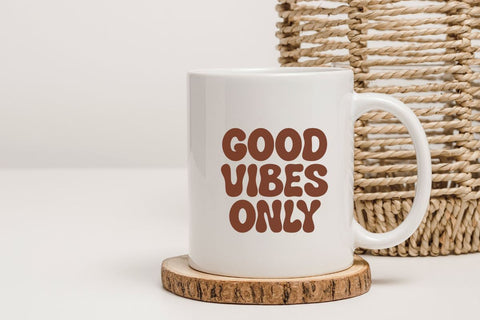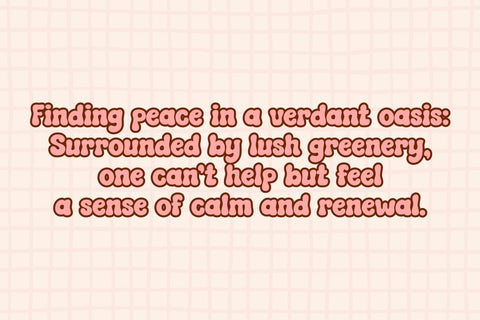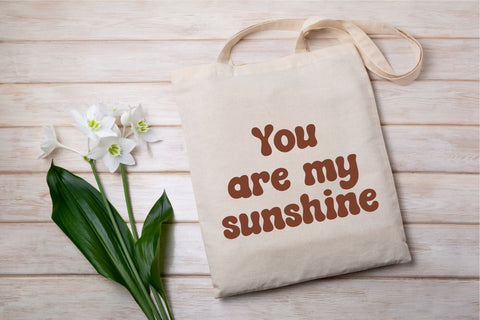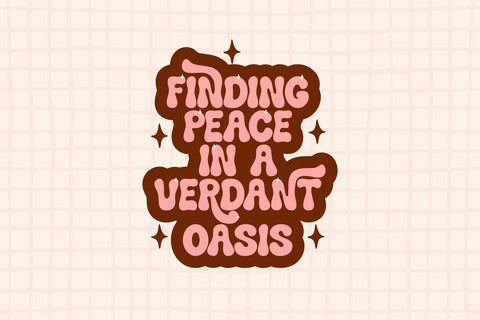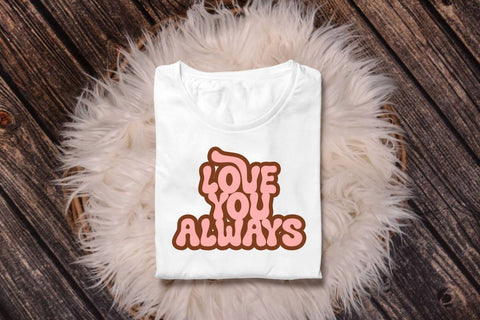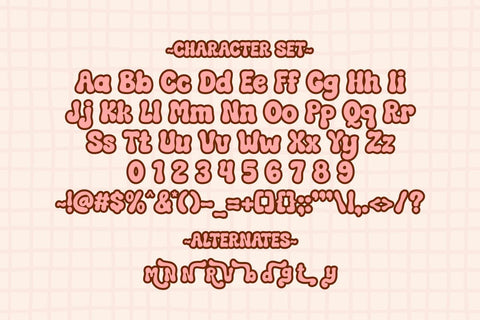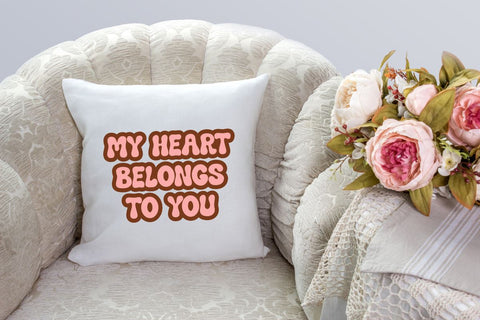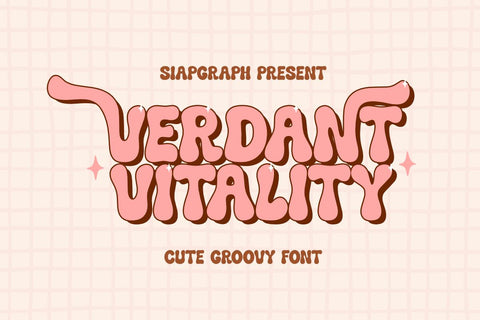
Verdant Vitality - Groovy Retro Font
Verdant Vitality is a cute, groovy retro font that infuses your designs with a lively, vintage charm. Perfect for Cricut projects, retro posters, DIY crafts, greeting cards, and branding, this font brings a playful yet nostalgic touch to any creative work. Its bold, wavy lines and whimsical style make it ideal for projects that need a fun, energetic vibe.